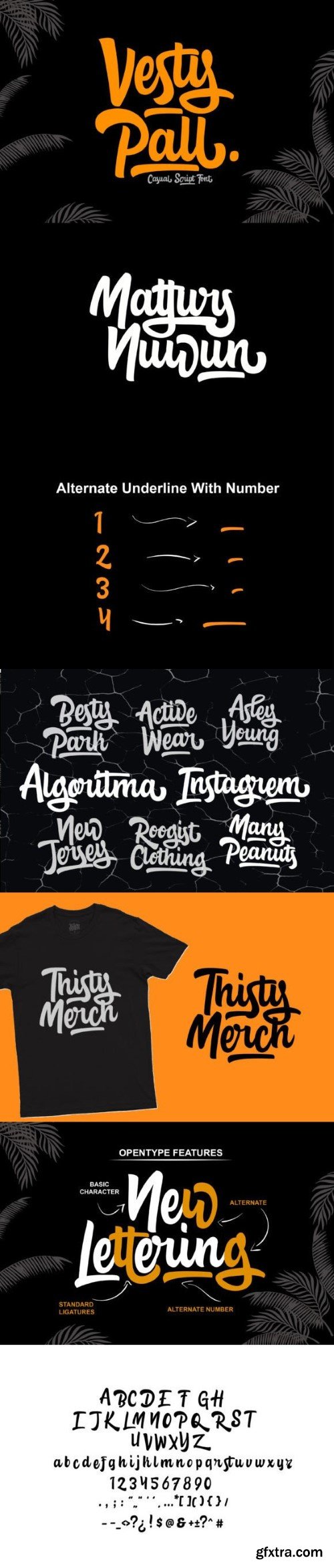
维斯特帕尔字体
Vesty Pall is the epitome of casual elegance in the world of script fonts. With its stylish yet approachable letterforms, it strikes the perfect balance between sophistication and friendliness. This versatile typeface can effortlessly transform a range of design projects, from invitations and logos to social media graphics. Vesty Pall’s charm lies in its ability to convey both style and warmth.